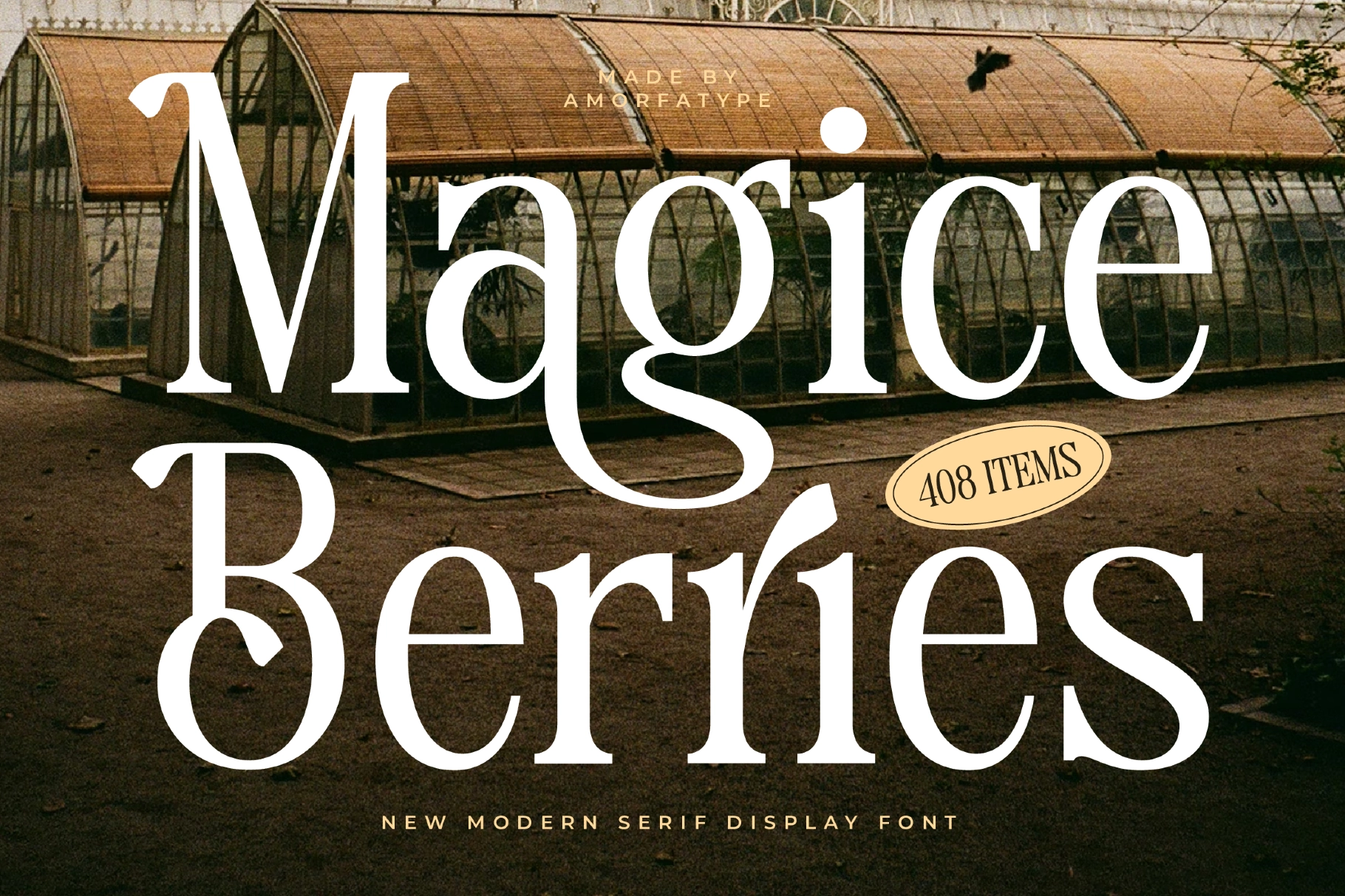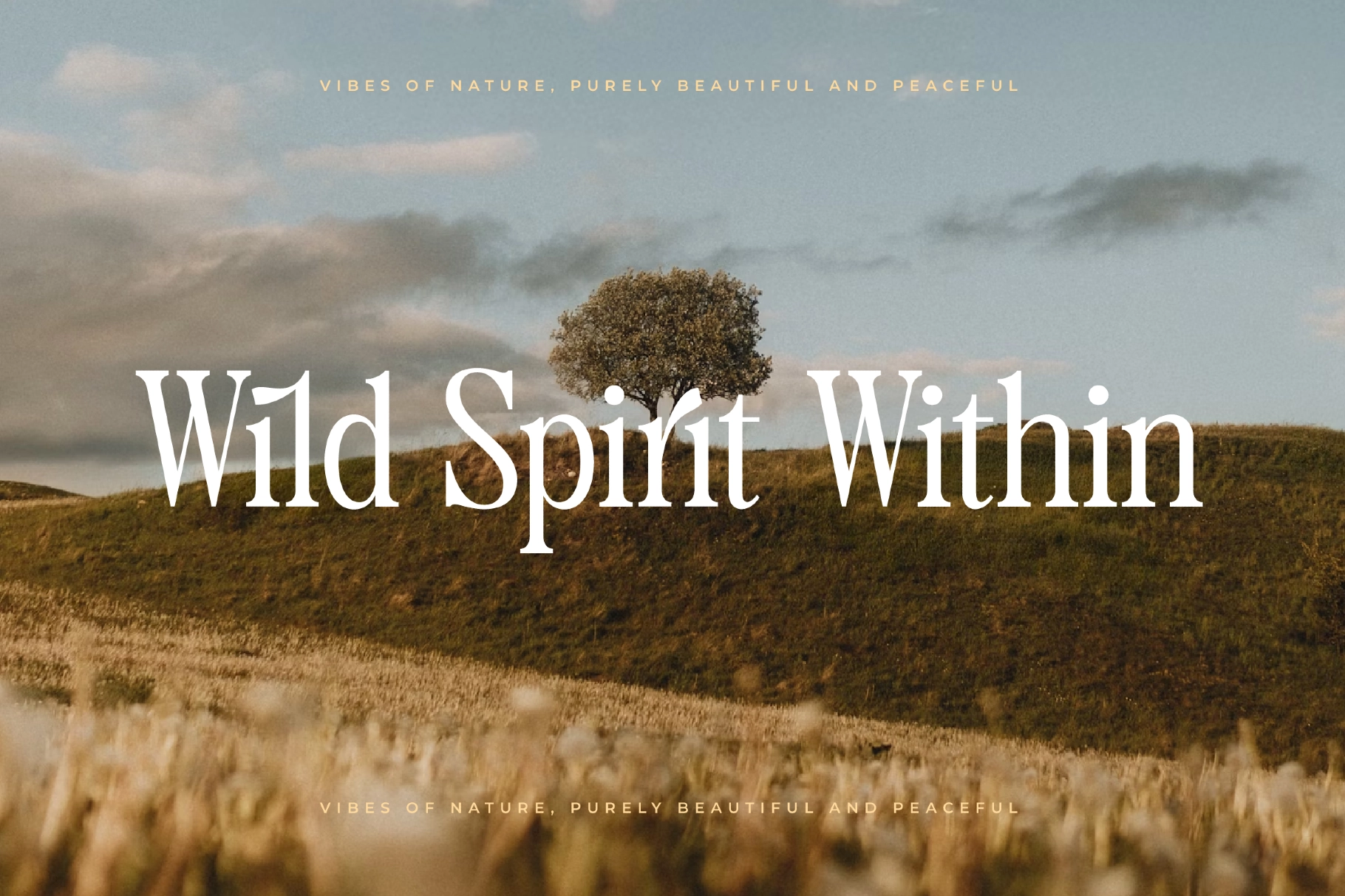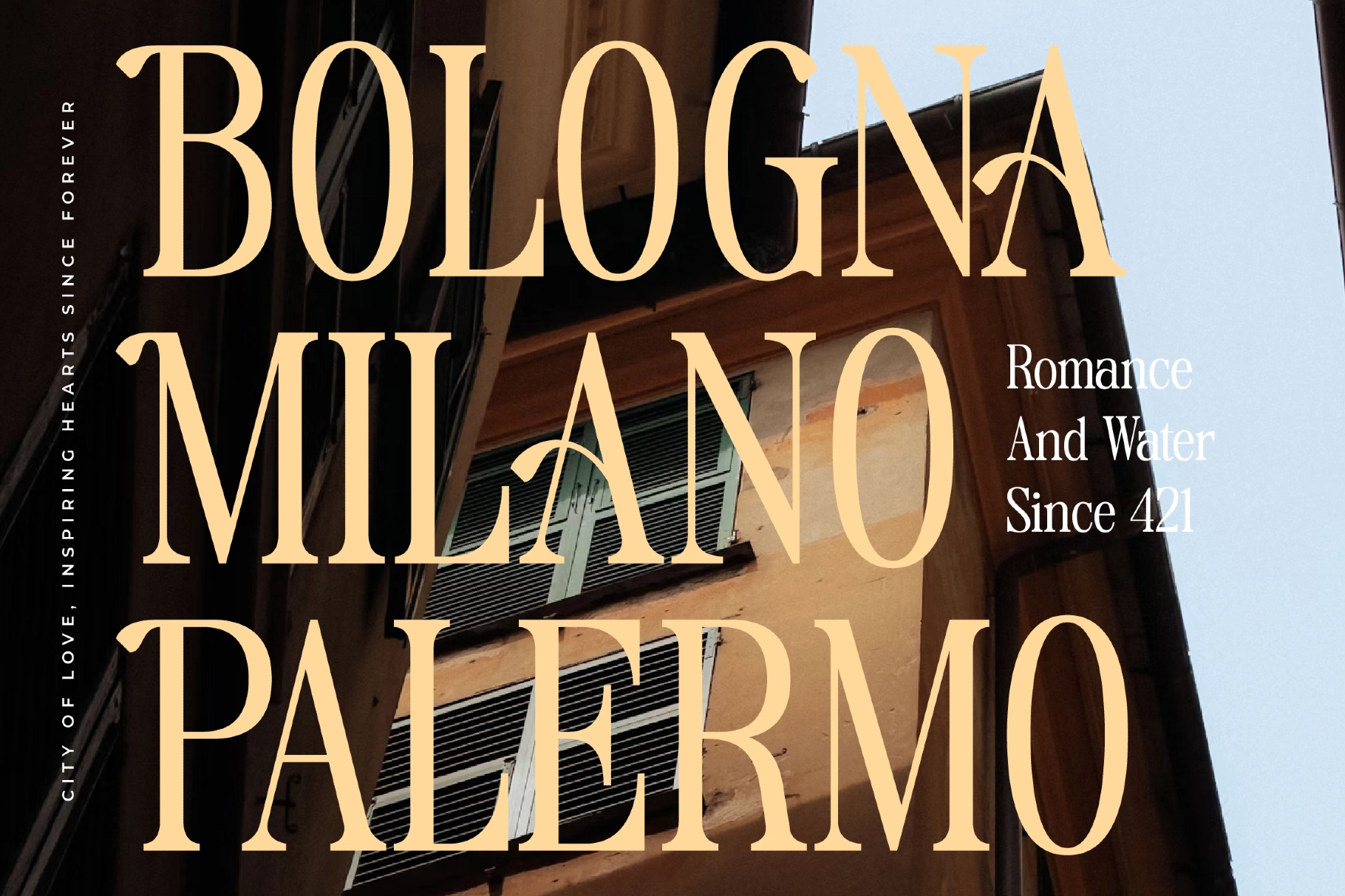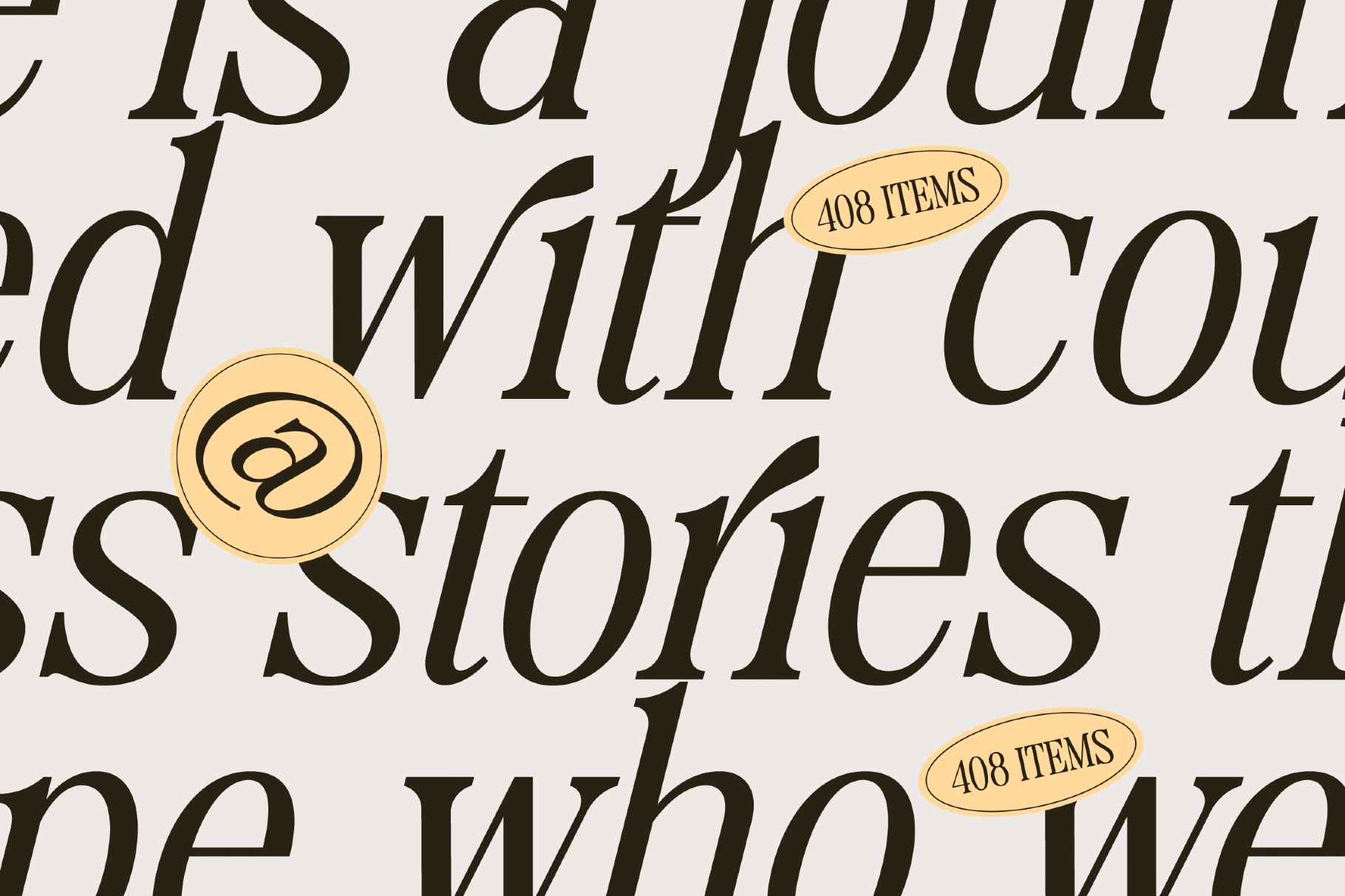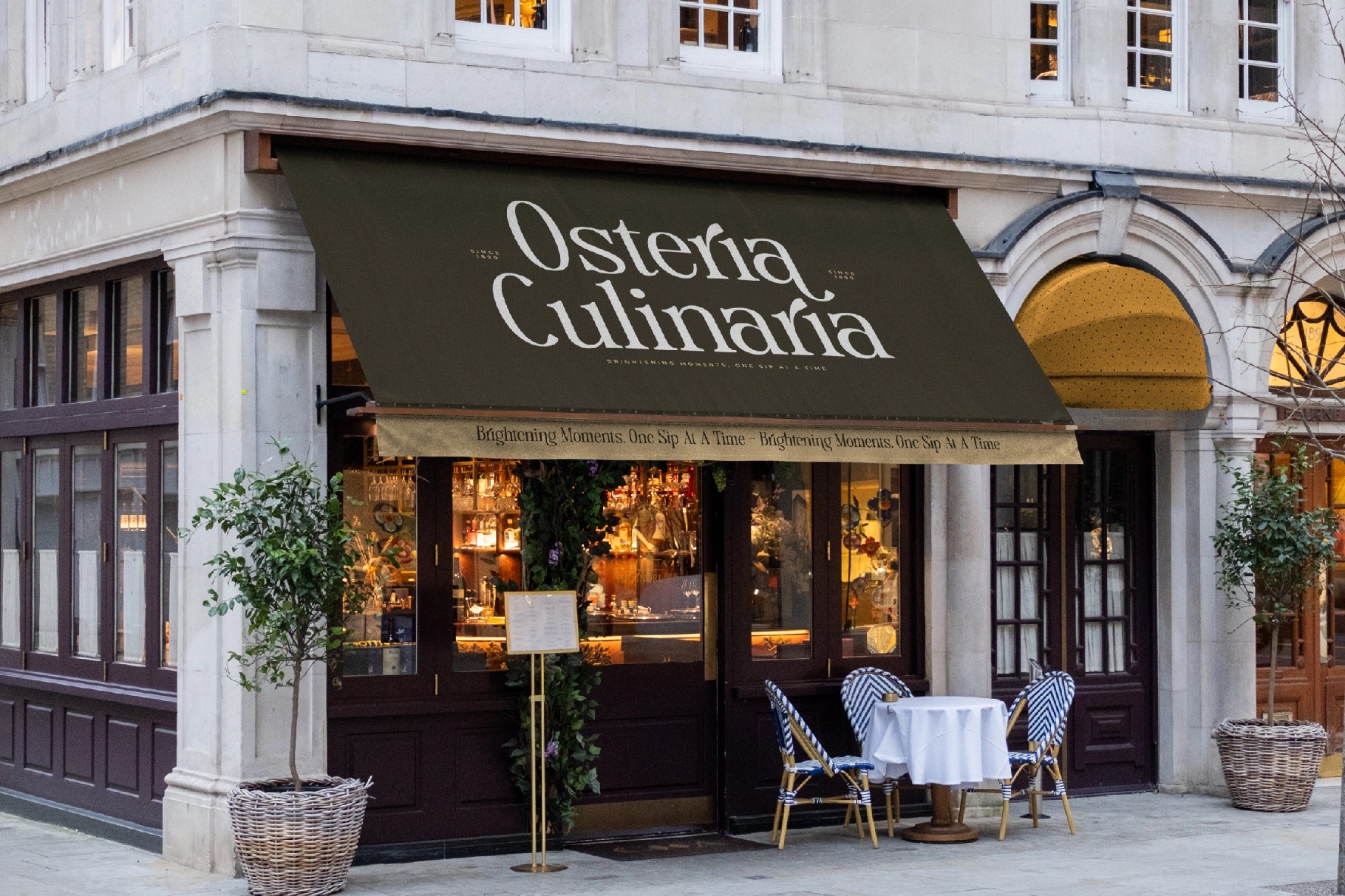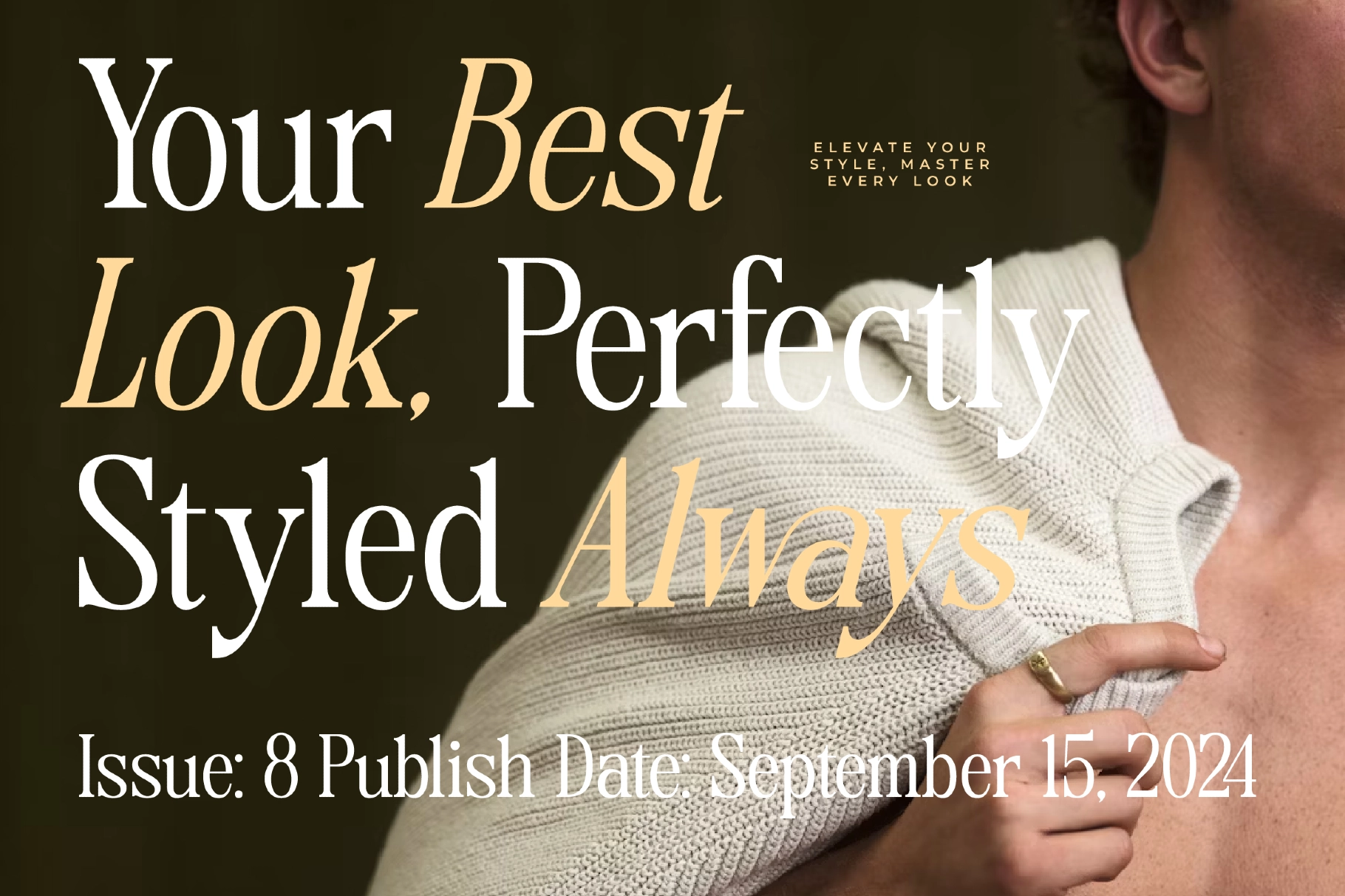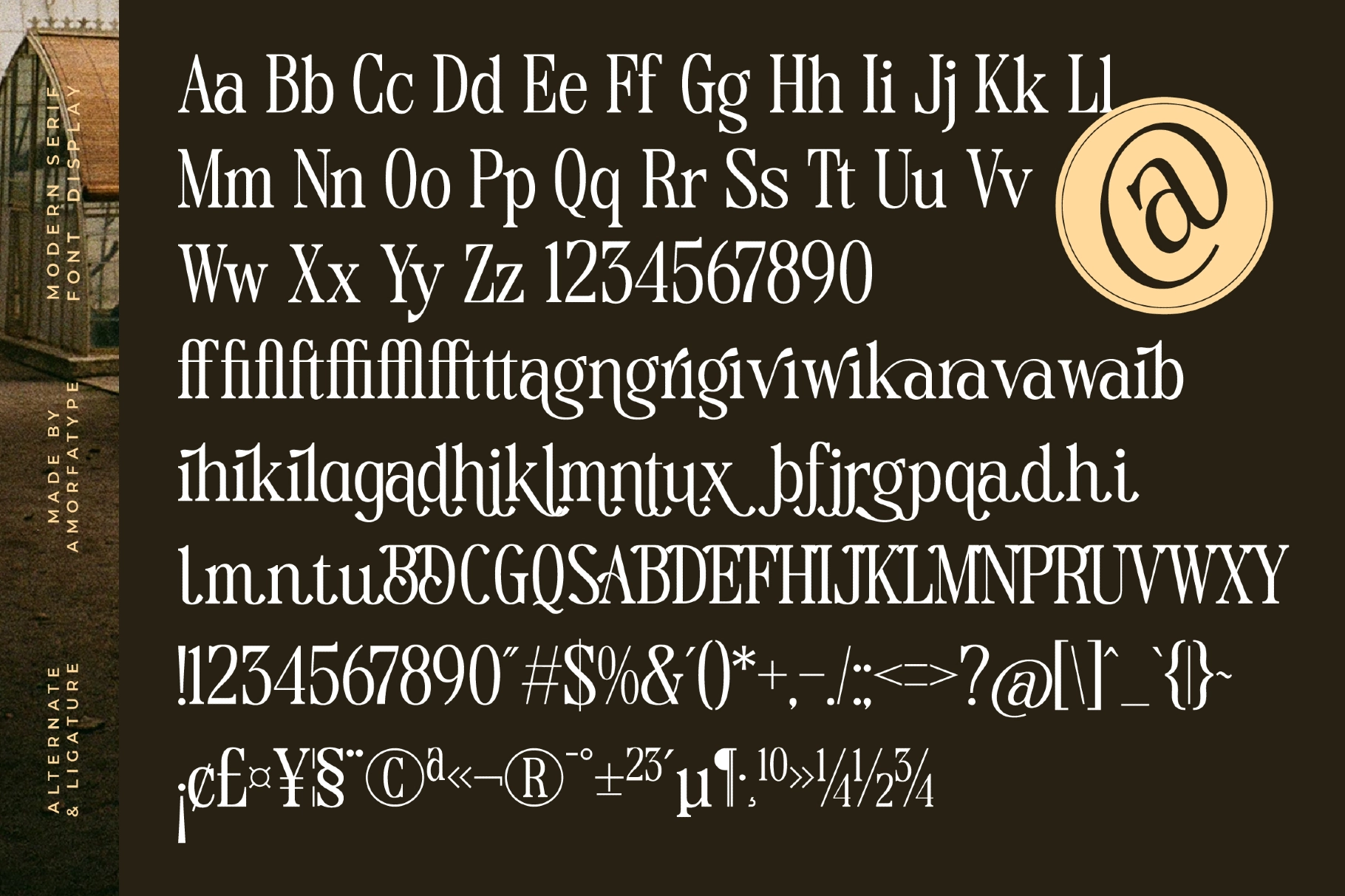
Magice Berries - Elegant Editorial Serif Font
Magice Berries is an elegant editorial serif font with extreme thick-to-thin contrast, wide rounded proportions, and teardrop terminals that give lowercase letters a quietly ornamental weight. At display size, the Regular reads with the authority of a high-fashion masthead; the Italic opens up into a flowing, almost calligraphic swing — the two styles sit close enough to pair on the same line, which makes mixed-weight titling compositions straightforward.
The contrast and open counters place it in the tradition of Didone titling types, but the terminal details and the looser rhythm of the italic pull it away from the purely academic and into editorial and identity work.
• 2 styles: Regular, Italic;
• Uppercase & lowercase;
• Numerals, punctuation & symbols;
• Standard ligatures, discretionary ligatures;
• Stylistic alternates, stylistic sets;
• Fractions, superscripts & ordinals;
• Multilingual support;
• 408 glyphs per style.